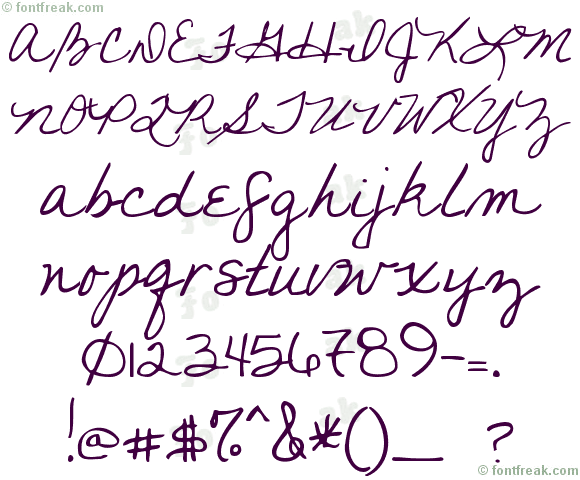
you found me
About you found me
The "you found me" font, created by Kimberly Geswein, is a delightful handwritten style that exudes warmth and charm. This script font features smooth, flowing lines that mimic the natural strokes of a pen, making it an excellent choice for projects that require a personal touch. Its moderate stroke weight provides a balanced appearance, while the subtle contrast between thick and thin lines adds visual interest without overwhelming the viewer. The spacing in this typeface is thoughtfully designed, ensuring legibility while maintaining an inviting, casual look.
This font is perfect for a variety of creative applications. It shines in wedding invitations, where its elegant yet approachable style can beautifully convey heartfelt sentiments. For small businesses, the "you found me" font works wonderfully on restaurant menus, providing a friendly atmosphere that can entice customers. Additionally, it is well-suited for crafting greeting cards or personal notes, making everyday communications feel special. Graphic designers can also leverage this font in branding projects to create a distinct identity that resonates with audiences, particularly in the lifestyle and artisanal sectors.
What truly sets the "you found me" font apart is its ability to evoke emotions through typography. It combines elegance with a casual flair, making it a perfect choice for anyone seeking to add a personal touch to their projects. With the "you found me font free download," you can easily incorporate this captivating typeface into your designs and elevate your creative work.